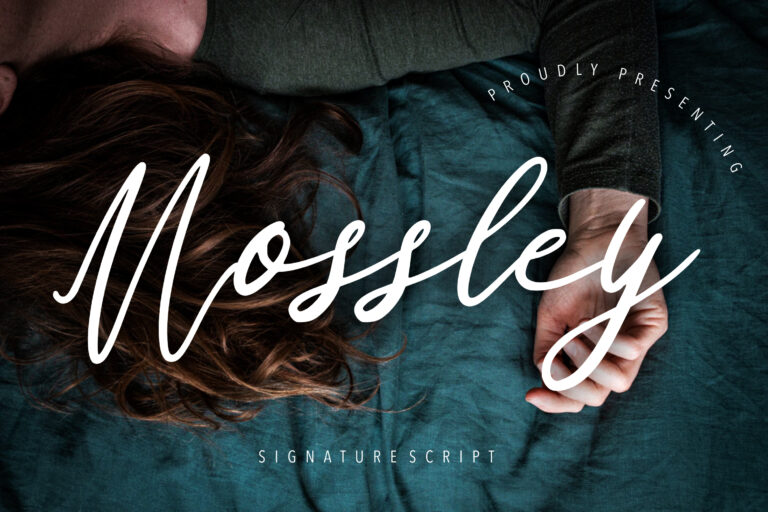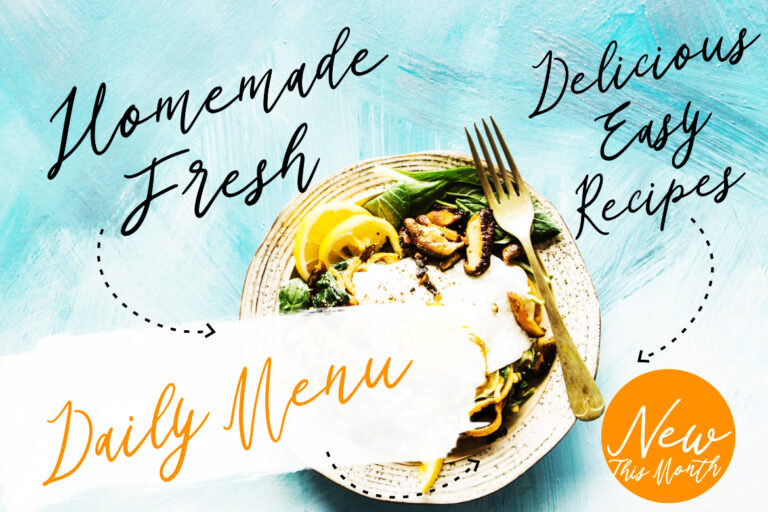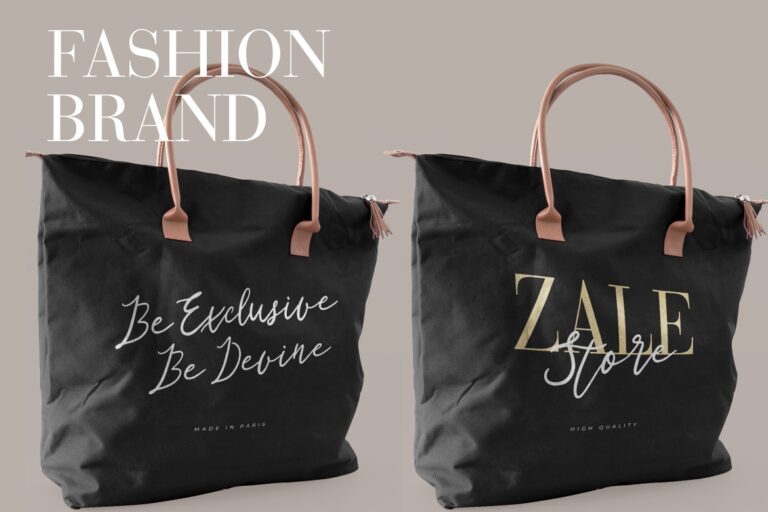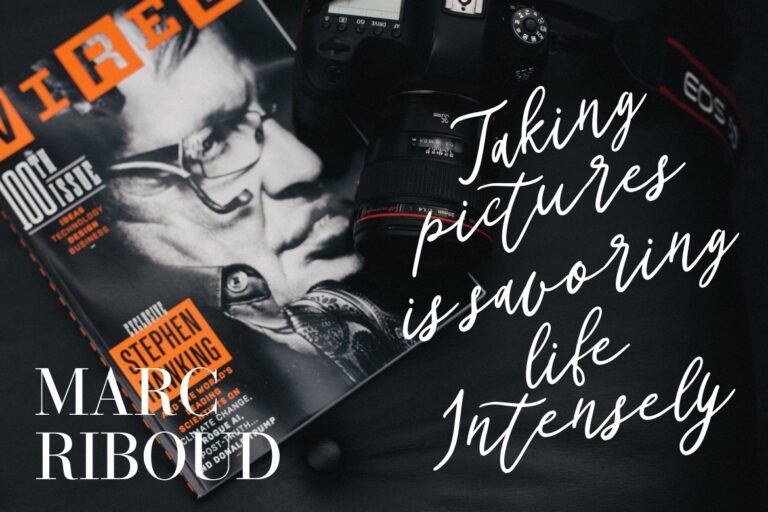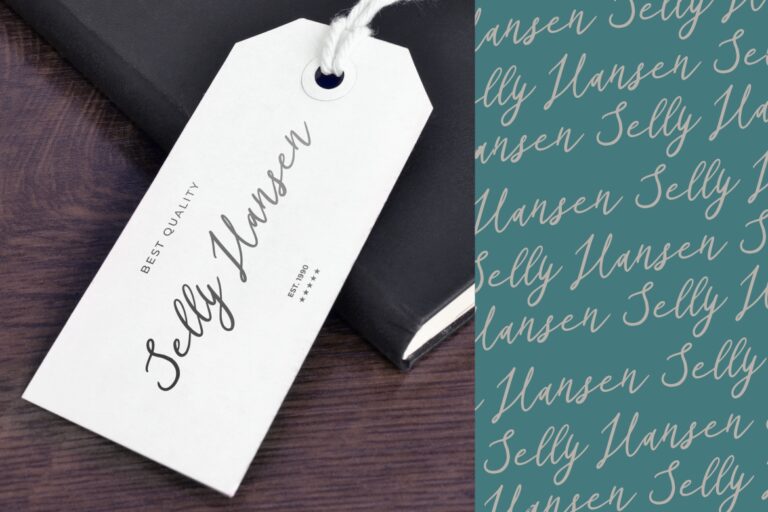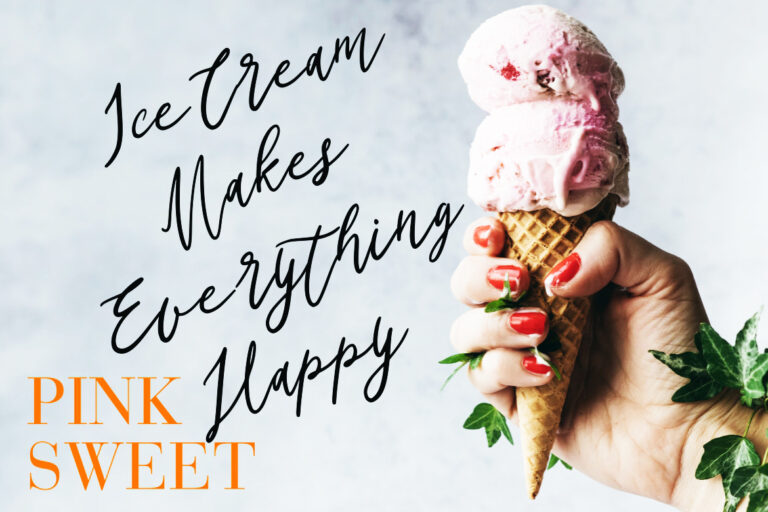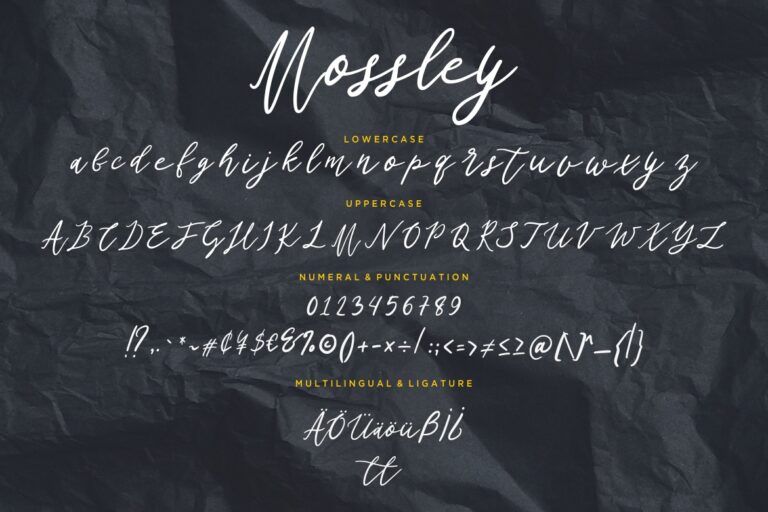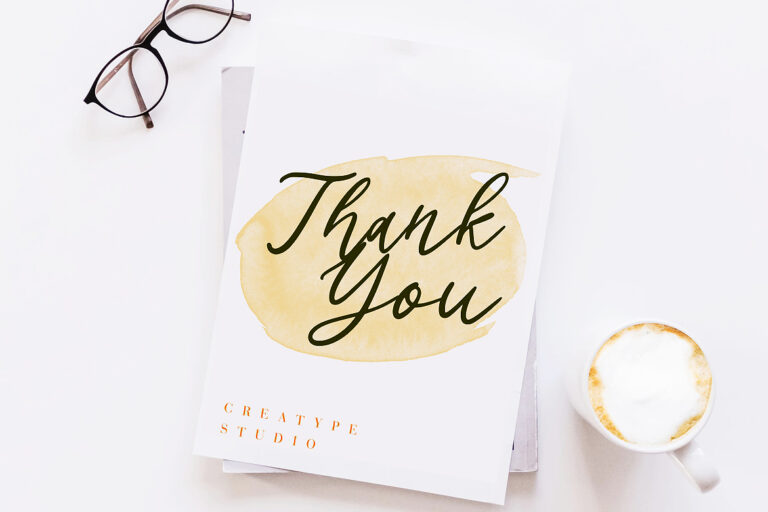
Mossley Signature Script
Mossley is signature script font with a handwritten style make this font looks elegant, natural, stylish and perfect for any awesome projects that need handwriting taste.
Mossley is perfect for branding projects, logo, wedding designs, social media posts, advertisements, product packaging, product designs, label, photography, watermark, invitation, stationery and any projects that need handwriting taste.
- Fonts include multilingual support for; ä ö ü Ä Ö Ü ß ¿ ¡